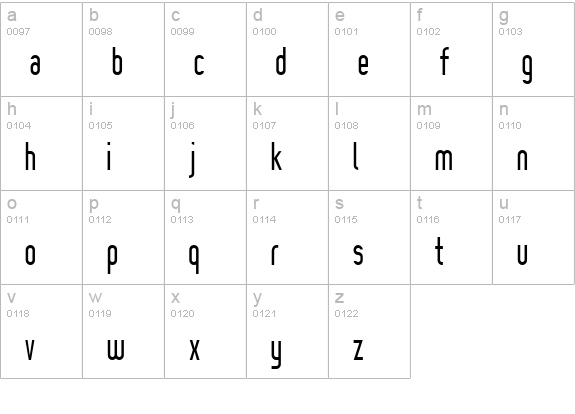
[z] Prozak Light is a refined, elegant variant in the [z] typeface family \xE2\x80\x94 well suited to elegant body text, refined sub-headings, and luxury branding.
Discover the elegant beauty of [z] Prozak Light font, a contemporary typeface that exudes sophistication and style. With its sleek lines and clean design, this font is perfect for adding a touch of modernity to your projects. Whether you're designing a logo, creating a website, or crafting a poster, [z] Prozak Light font will help you achieve a polished and professional look. What makes [z] Prozak Light font even more appealing is that it is completely free to download. You can get your hands on this versatile font at FontsMarket.com, a trusted source for high-quality fonts. Embrace the creativity and flexibility that [z] Prozak Light font offers, and take your designs to the next level.